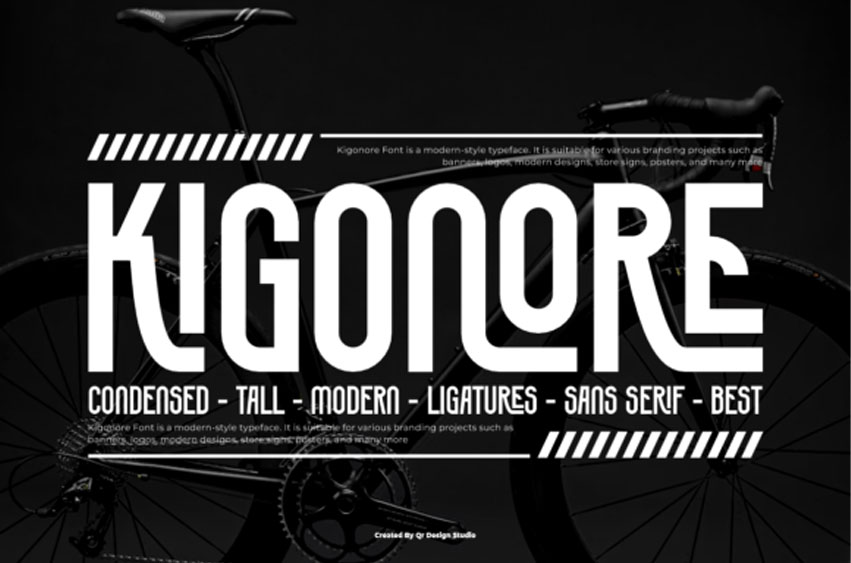
Kigonore Font is a highly stylized, futuristic Condensed Tall Sans Serif that perfectly embodies modern, high-tech power.
Its defining features are the dramatically tall, compressed letterforms and the inclusion of unique, curving ligatures that give it a distinctive, architectural aesthetic. Set against a powerful backdrop, this font is ideal for high-impact branding, sports and fitness apparel logos, technology company websites, dramatic poster headlines, and modern bio-link designs.
Kigonore is designed for maximum visual punch, making it the top choice for projects that require a sleek, dynamic, and forward-thinking identity.